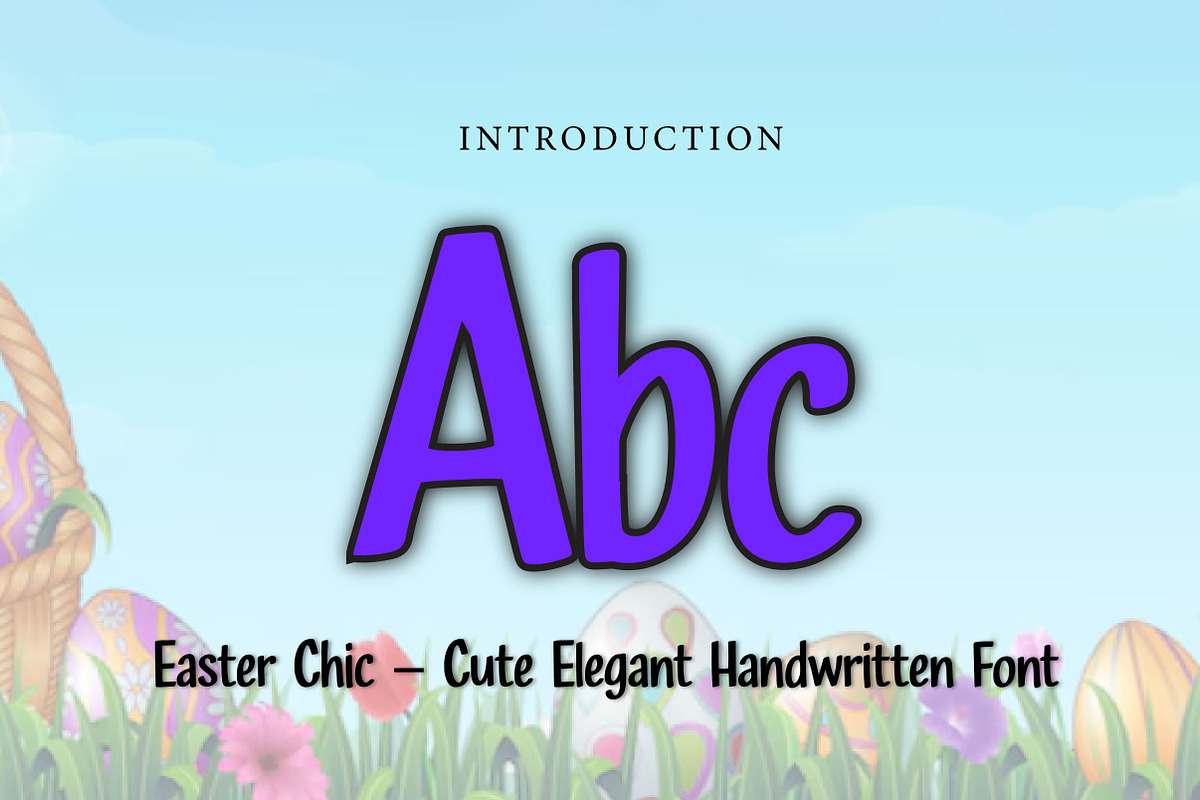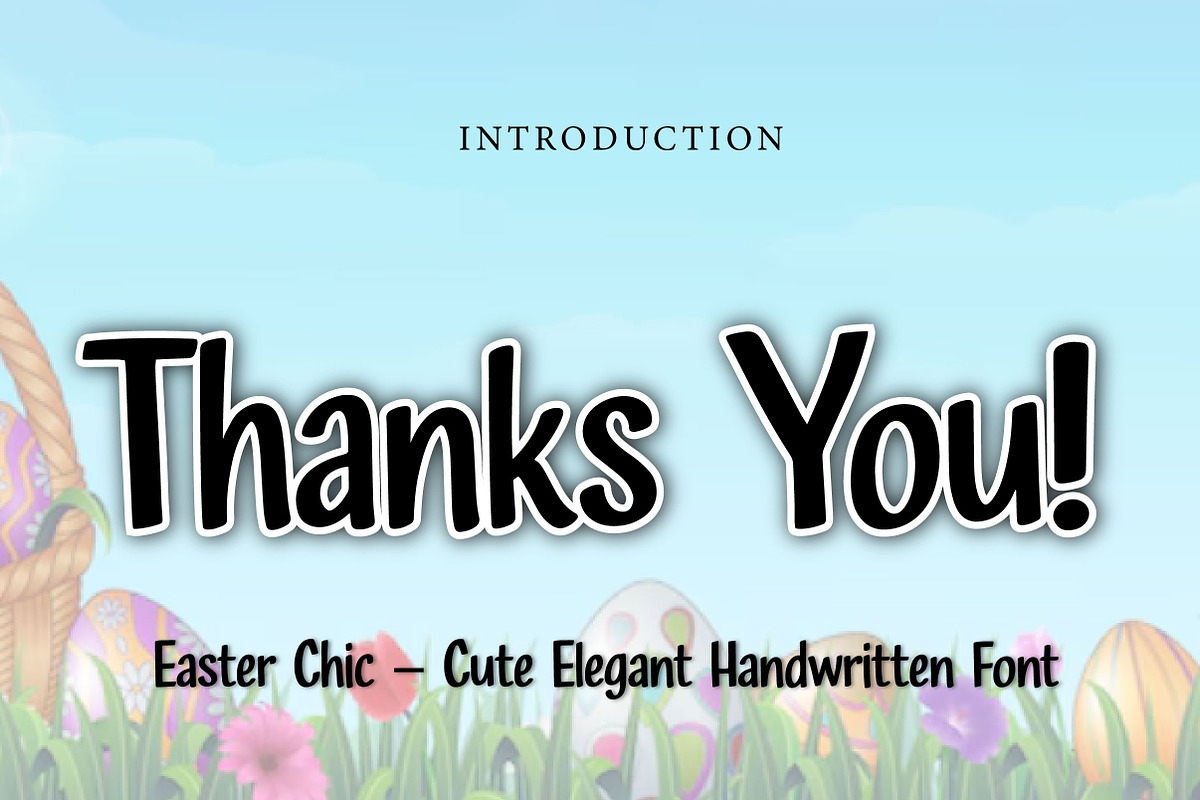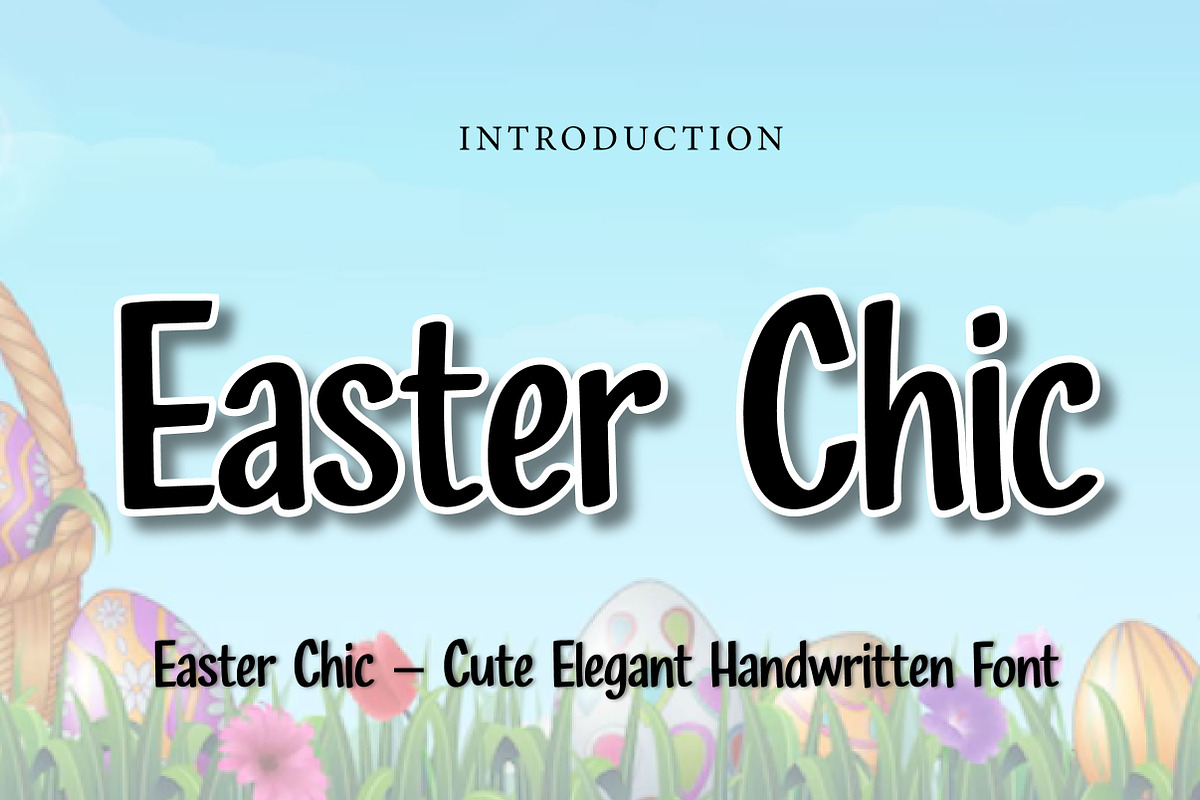
Easter Chic
Easter Chic – Cute Elegant Handwritten Font
Easter Chic is a cute, soft, and stylish handwritten font with a modern touch, perfect for Easter designs, invitations, branding, packaging, and seasonal creative projects.
Easter Chic is a charming handwritten font designed to blend cuteness with elegance. With its smooth curves, rounded strokes, and soft letterforms, this font creates a clean and friendly look that feels both modern and festive.
Its balanced style makes Easter Chic perfect for seasonal and creative designs that need a gentle and stylish touch. Whether you are creating Easter cards, spring invitations, product packaging, social media graphics, stickers, or branding, this font helps your typography feel warm, cheerful, and visually appealing.
The simple yet expressive character ensures readability while adding personality, making it suitable for both digital and print use. Easter Chic is ideal for designers who want a font that feels soft, cute, and slightly elegant at the same time.
Perfect For Easter and spring designs Greeting cards Holiday invitations Seasonal branding Product packaging Social media graphics Stickers and labels Cute logos and headlines Craft and DIY projects Soft typography layouts Font Features Uppercase letters Lowercase letters Numbers & punctuation Cute handwritten style Smooth and rounded shapes Friendly and elegant look Perfect for display use